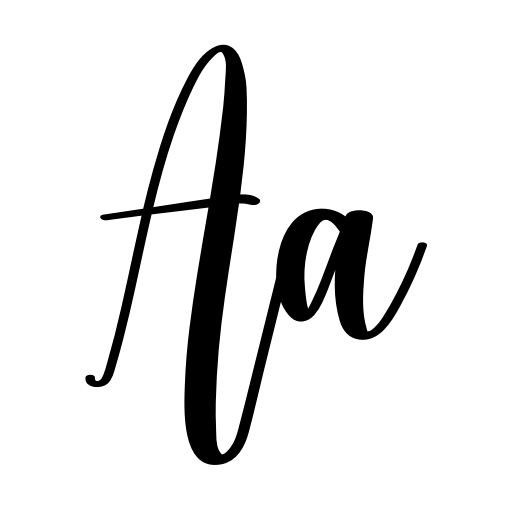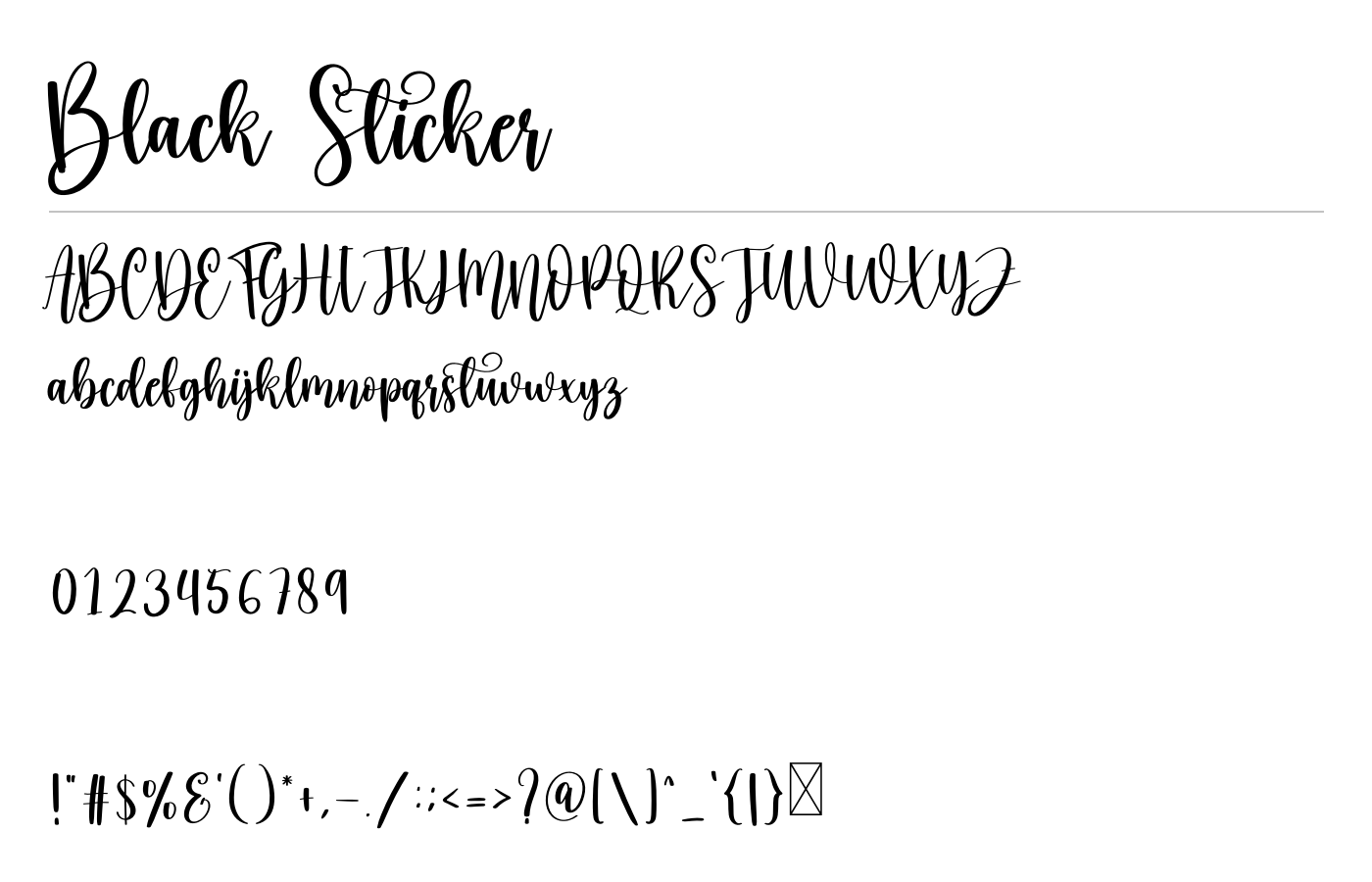
Black Sticker Font is a graceful and stylish script typeface featuring elegant, flowing strokes with a lively, hand-lettered feel. Its slender, slightly condensed letterforms with playful swashes and smooth curves make it ideal for creative and feminine branding, invitations, or logos that seek a charming and personal touch. This font works beautifully in headlines and decorative text, lending a modern yet warm, artistic vibe to any design.
Black Sticker Font
About Black Sticker Font